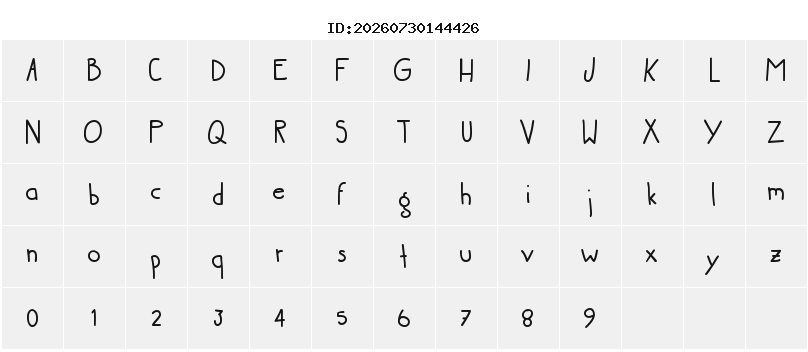
About littera.ttf
littera.ttf is a modern, elegant sans-serif font designed for ultimate readability and visual harmony. Perfect for branding, headlines, web design, and print materials.